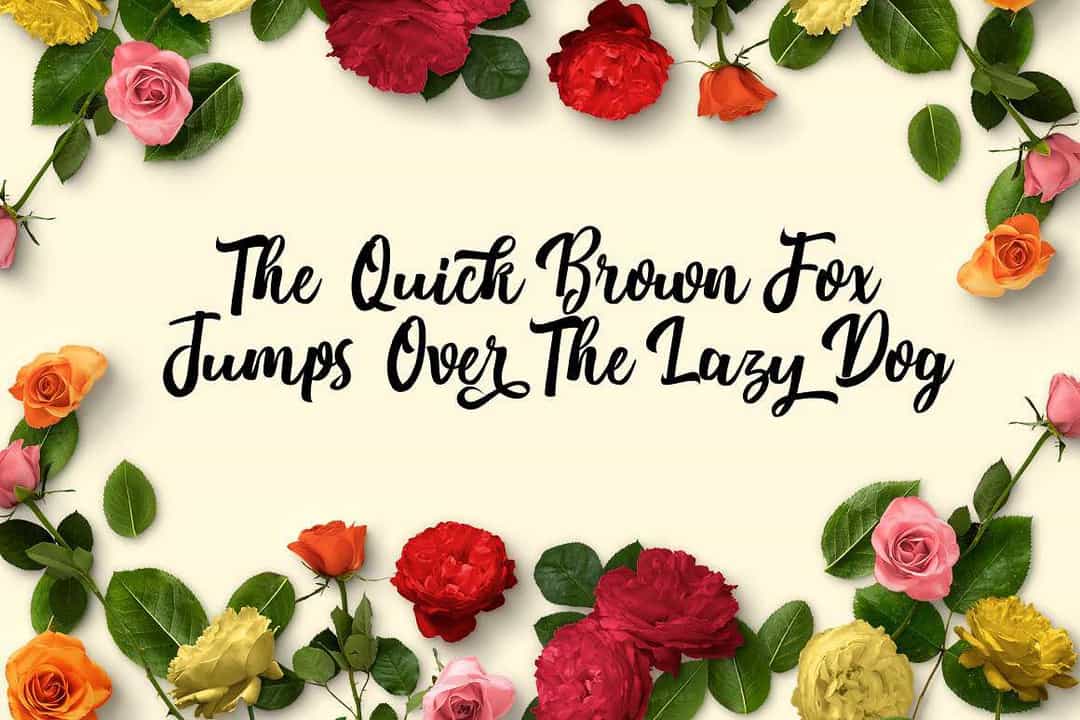
Discover Nichole Script Font, part of the Brush Comic collection—a versatile and unique font perfect for adding a personal touch to your projects. Download it for free and enjoy crafting designs with style, from invitations to social media posts. This font is available exclusively for personal use, giving you the freedom to create without limits. Unlock your creativity with Nichole Script Font today!
Nichole Script Font. Welcome to this lovely nichole script font. It can be used for young and energetic designs and suitable for different designs like Wedding Invitation Design, Flyers Design, Logo Design, and many more designs.